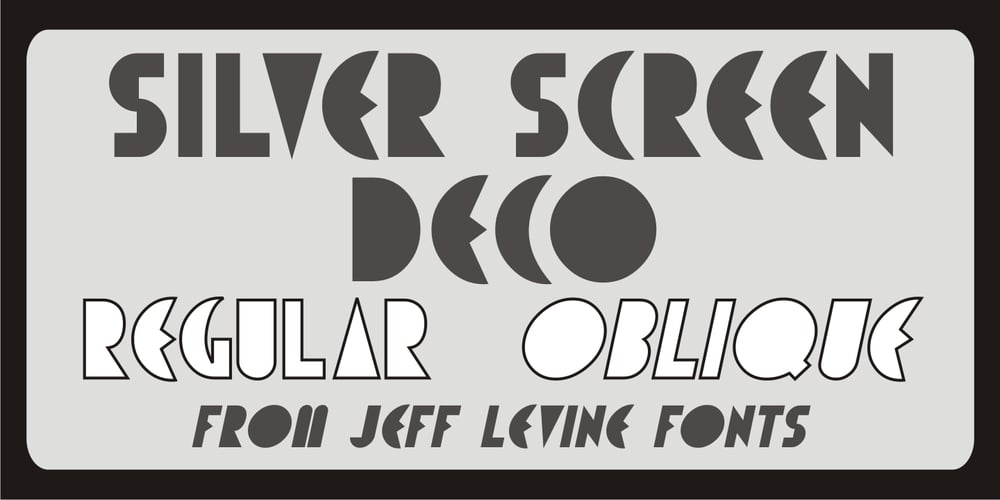
Silver Screen Deco JNL Font Family was designed by Jeff Levine and published by Jeff Levine. Silver Screen Deco JNL contains 2 styles and family package options. A 1963 image of the New View Theater in Los Angeles with its marquee’s Art Deco neon lettering was the inspiration for Silver Screen Deco JNL, which is available in both regular and oblique versions.